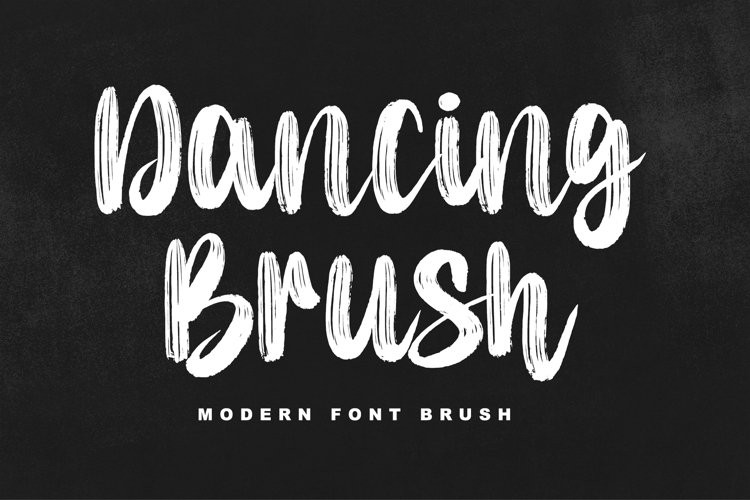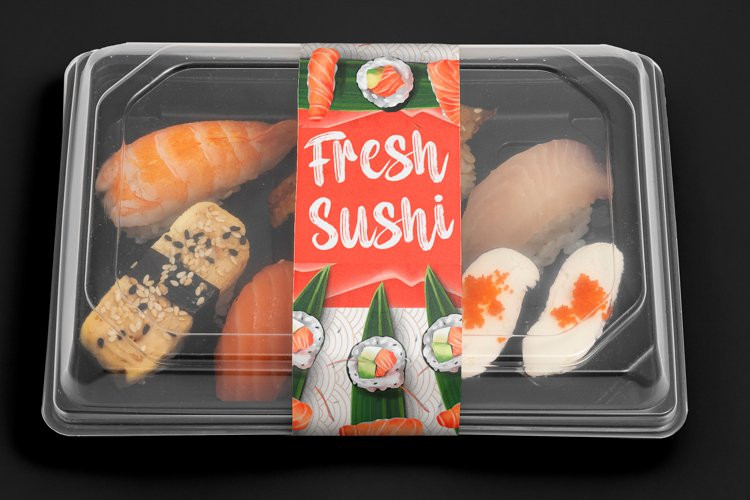
Dancing Brush Font
Dancing Brush FontDancing Brush is a strong original handwritten font with a unique feel. Natural and elegant, cursive, legible script font which can be used on a wide variety of designs such as headlines, titles, headings, logos, branding, posters, books, and any other creative design. It will add a unique spark to any design project that you wish to create! This font is PUA encoded which means you can access all of the amazing glyphs and ligatures with ease!